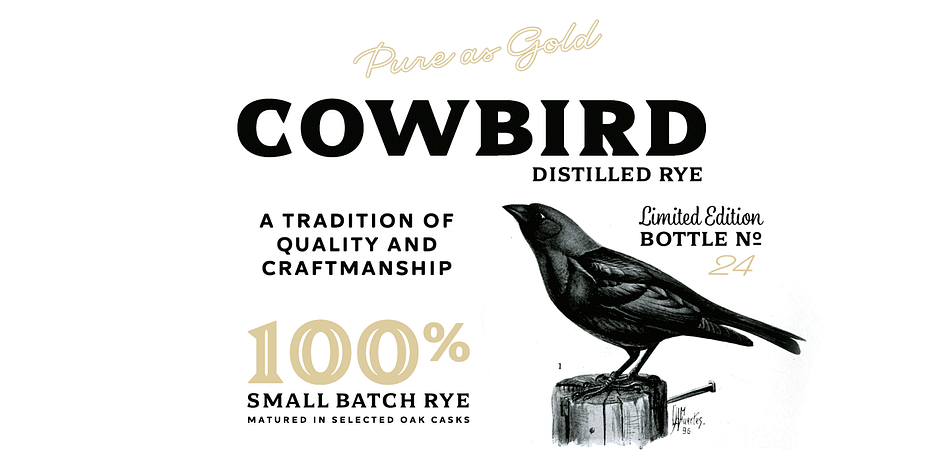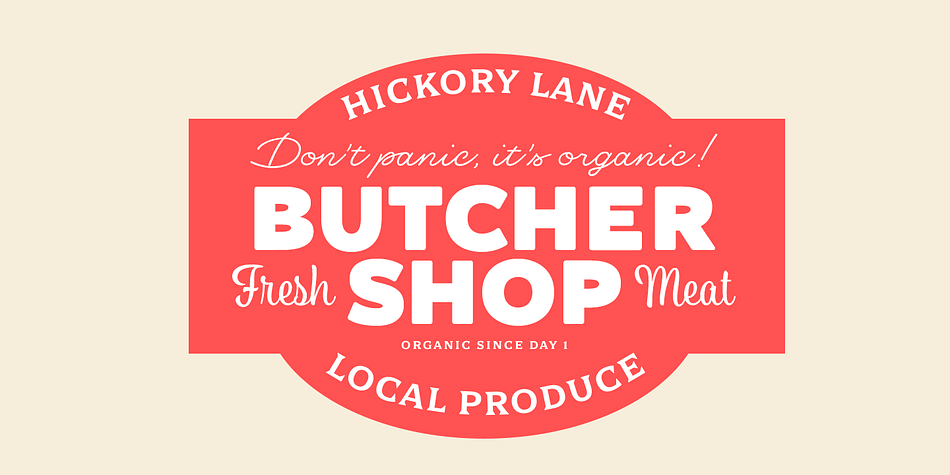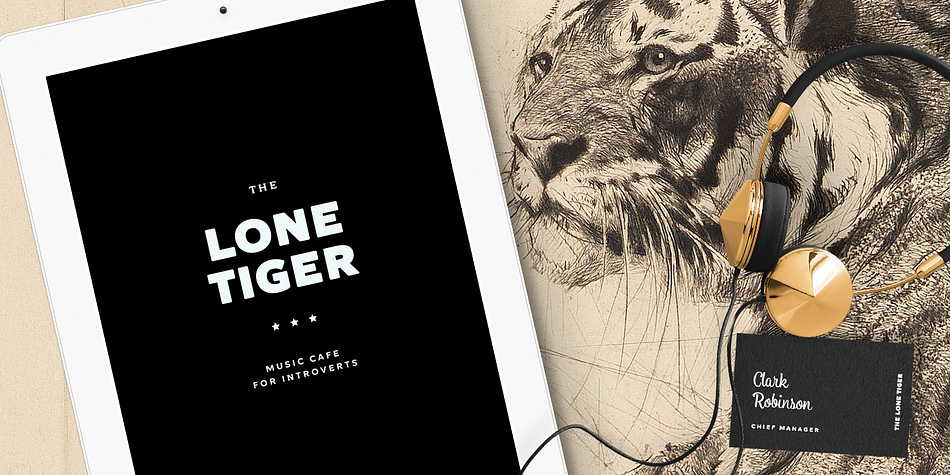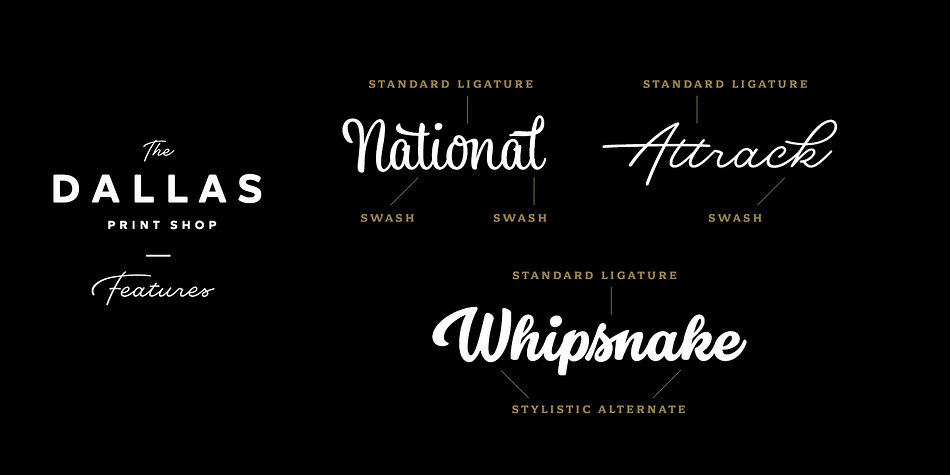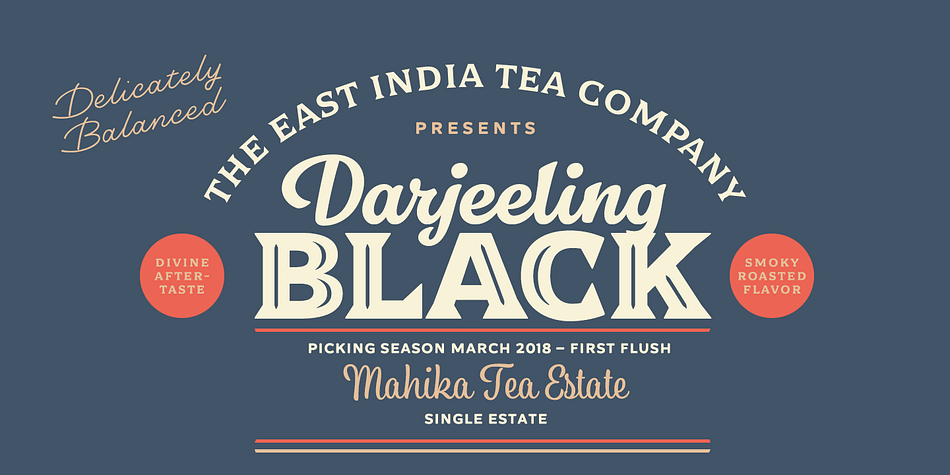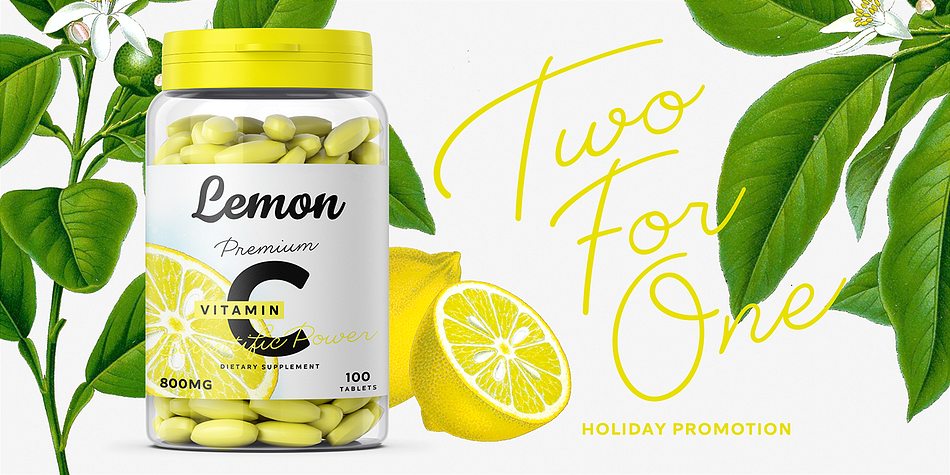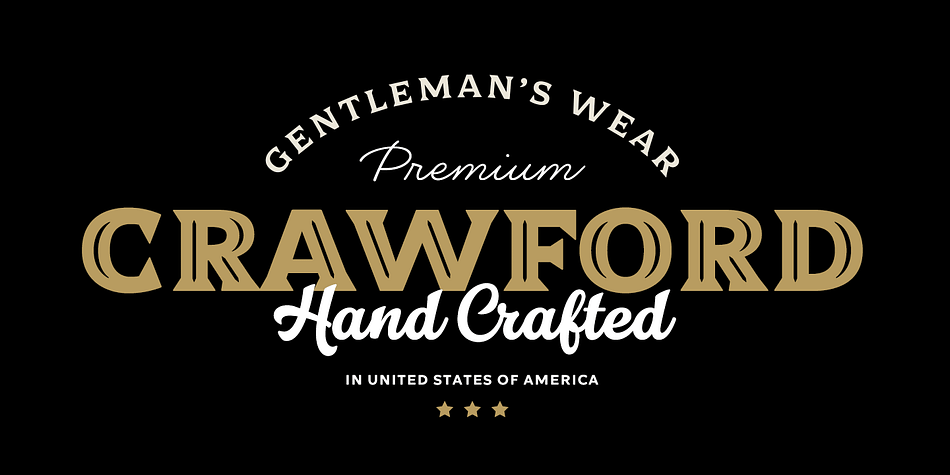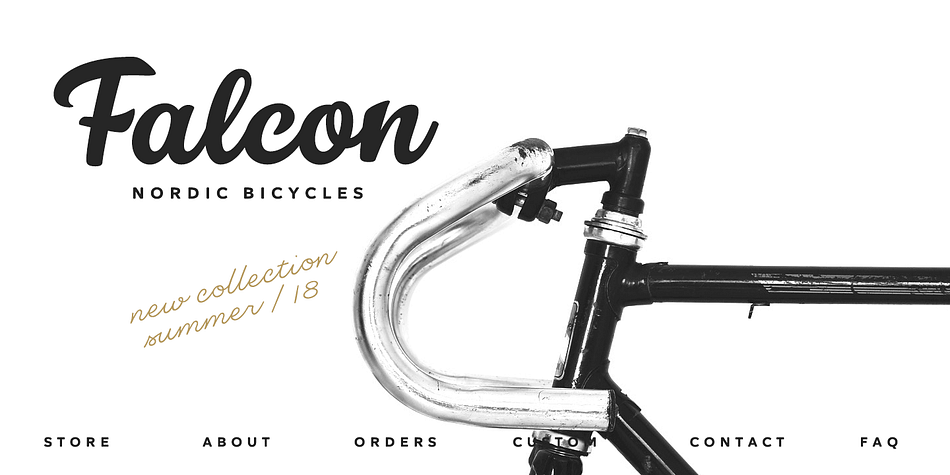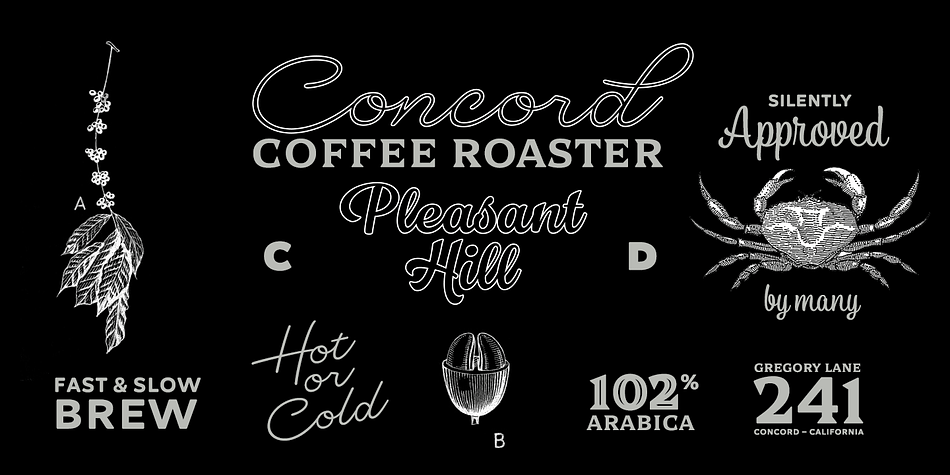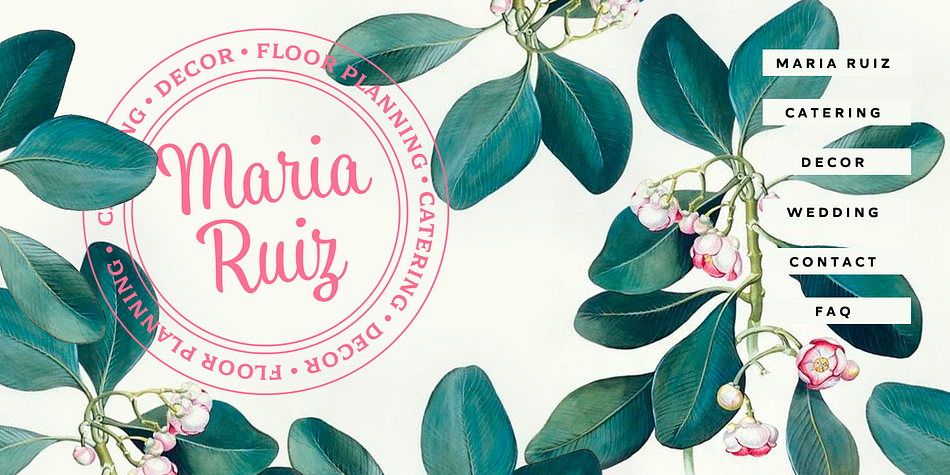
Designed by Emil Karl Bertell and Teo Tuominen, Dallas Print Shop is a multiple classification font family. This typeface has eight styles and was published by Fenotype.
Dallas Print Shop is a refined display collection of five styles and eight fonts. The fonts are designed to act together. They work great in pairs or even all together yet they can well be used alone.
Dallas Print Shop Sans is a sturdy Sans with soft edges and two weights - Regular and Heavy
Dallas Print Shop Serif is a sturdy Serif with straight forms and just slightly rounded corners. Serif has three weights: Regular, Heavy and Inline which is same as Heavy but with ornate inlines.
Dallas Print Shop Brush is a Brush Script with soft and bold classic script forms. Brush is equipped with Standard Ligatures and Stylistic Alternates.
Dallas Print Shop Pen is a flashy Monoline Script with a clear character. Pen is equipped with Contextual and Swash Alternates.
Dallas Print Shop Script is a curly upright Script with a feminine character. Script is equipped with Standard Ligatures and Swash Alternates.